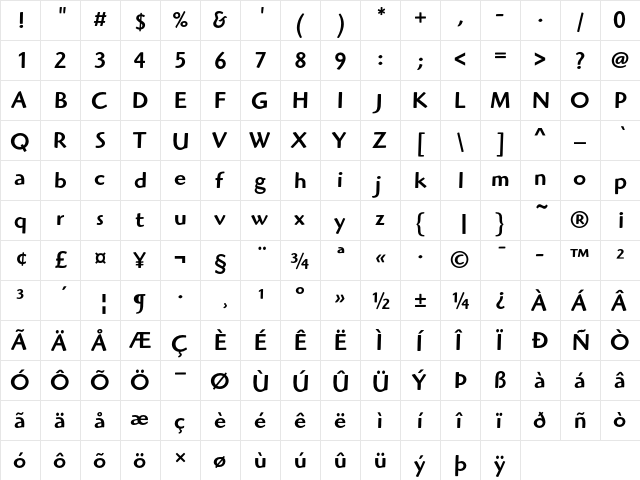
Highlander ITC Medium
Design Context for Highlander ITC Typeface
Highlander ITC offers clean, dependable letterforms without strong stylistic allegiance, making it a practical choice for designers who need flexibility.
Pro Tip: Use Highlander ITC in both headline and body roles to test its range before committing to a single application.